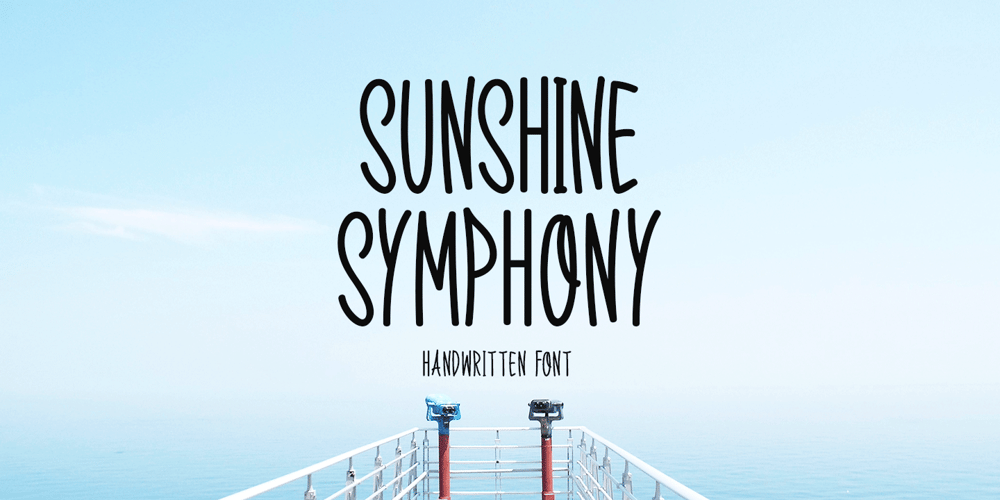
Sunshine Symphony Font Family was designed by Md Shohail Bhuian and published by Seemly Fonts. Sunshine Symphony contains 1 styles and family package options. Explore the elegance of Sunshine Symphony, a charming handwritten typeface that radiates charm. With its versatility, this typeface may be used for a wide range of projects, such as stationery, clothing, and promotional items. Its elegant touch elevates any design. The delicate lines and elegant appearance of Majestic Bullfinch lend refinement and flair to any design, be it a logo, flyer, or picture frame. With this classic and flexible typeface, you can unleash your creative side.–Uppercase